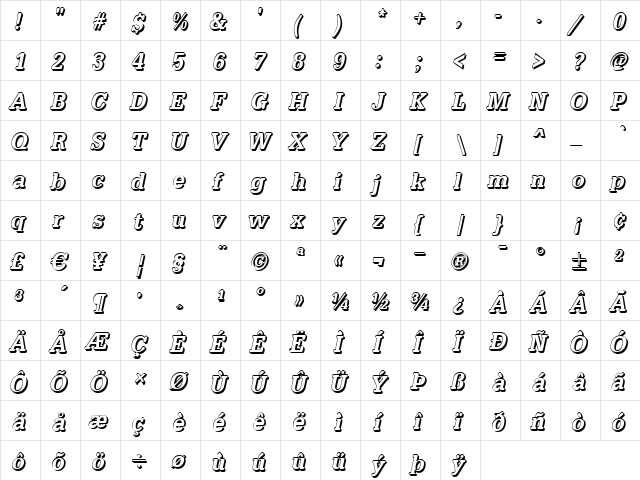
AstridBeckerShadowN-Medium Italic
Design Context for AstridBeckerShadowN-Medium Typeface
AstridBeckerShadowN-Medium brings ornamental detail and strong personality to headlines and identities, where visual impact matters more than quiet functionality. The dynamic lean of this cut emphasises speed and emphasis in any layout.
Font Pairing: Pair with a clean neutral sans-serif for body copy to let AstridBeckerShadowN-Medium's character lead without overwhelming the composition.
Pro Tip: Treat AstridBeckerShadowN-Medium as the centrepiece of your typographic hierarchy. One strong heading set in a decorative face can carry an entire layout.